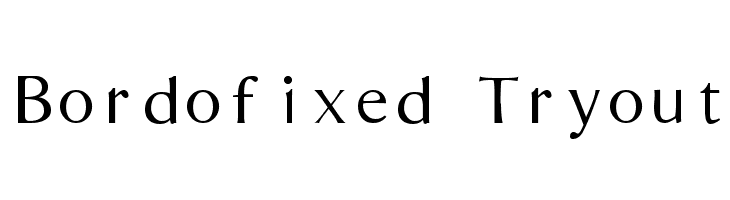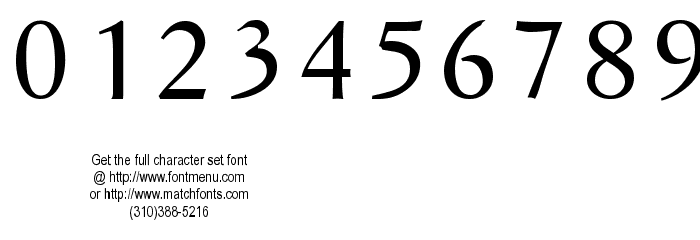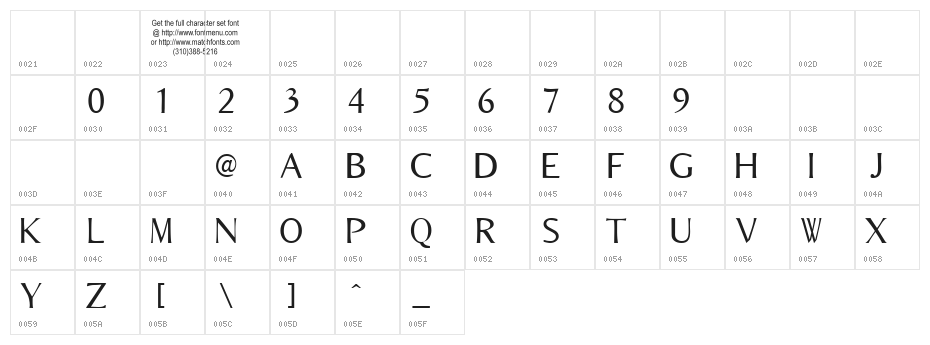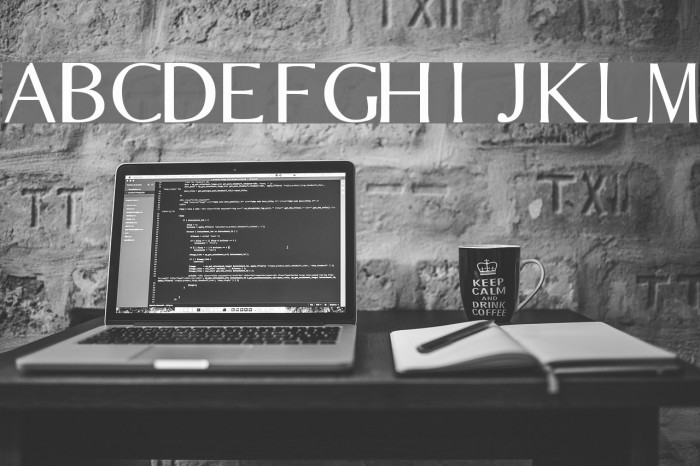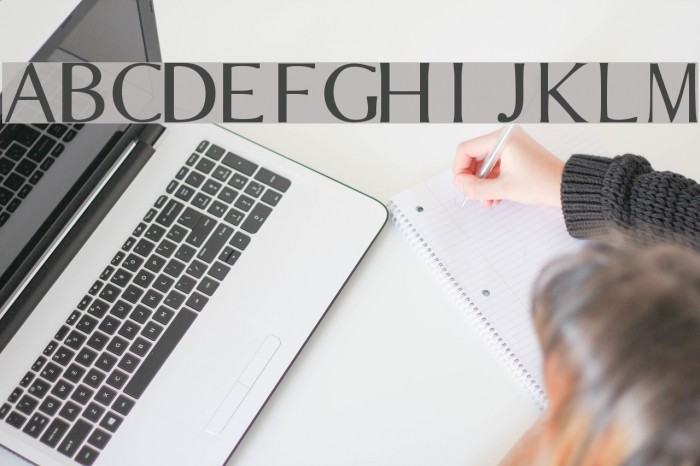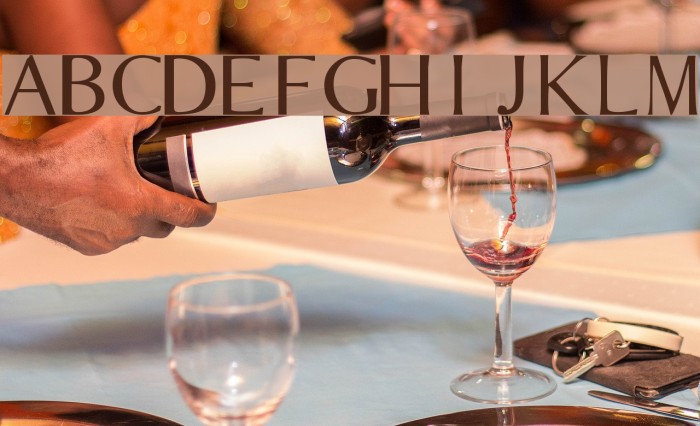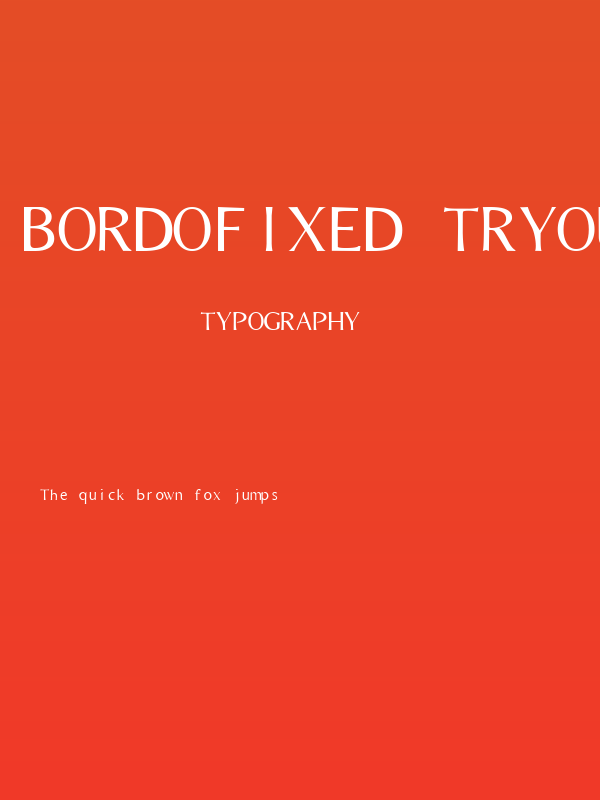
Bordofixed Tryout Font
Bordofixed Tryout Description
This font features a unique blend of modern and classic elements, characterized by its sharp, angular serifs and clean lines. The uppercase letters exhibit a strong presence with their tall, narrow forms, while the lowercase letters maintain a consistent style with slightly rounded edges. The numerals are distinct and easily readable, complementing the overall design. Special characters are crafted with precision, adding to the font's versatility. The font's elegance and clarity make it suitable for a variety of applications, from formal documents to creative projects.